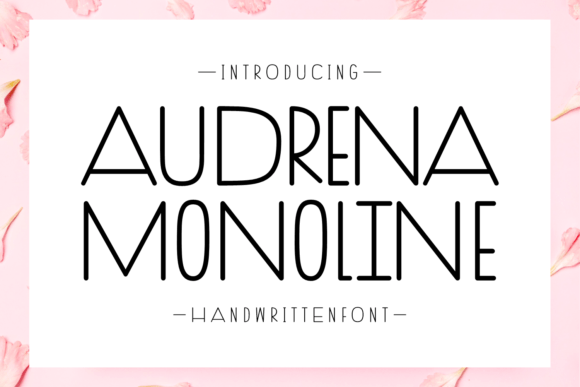
The Designer’s Delight: Audrena Monoline Font
Have you ever been in the middle of a design project, pouring your heart and soul into it, only to get stuck on one thing: the font? I certainly have! It was a typical Wednesday afternoon when I found myself working on a client’s branding project, and I just couldn’t seem to find the perfect handwritten font. That’s when I stumbled upon Audrena Monoline, and let me tell you, it was love at first sight! 💕
A Personal Touch: What Makes Audrena Monoline Special
Audrena Monoline is a handwritten font with a personal touch, perfect for adding a unique and authentic feel to your designs. Its charming and distinct look makes it ideal for crafters, designers, and creative hobbyists who want to give their text a one-of-a-kind personality.
• ✨ Unique and authentic handwritten feel
• ✅ Easy to read and understand
• 💫 Perfect for adding a personal touch to designs
• 🎨 Versatile and works well with various design styles
• 🤔 Limited character set compared to other fonts
• ⚠️ May not work well with very small font sizes
Exploring Alternatives: Similar Fonts to Audrena Monoline
The Story Behind Audrena Monoline: Designer Inspiration
Audrena Monoline was created with the intention of bringing a personal touch to designs. The designer wanted to create a font that felt authentic and unique, perfect for crafters, designers, and creative hobbyists who want to add a human touch to their work. The font is named after the designer’s grandmother, Audrena, who was known for her beautiful handwriting.
Q: What is Audrena Monoline font?
A: Audrena Monoline is a handwritten font with a personal touch, perfect for adding a unique and authentic feel to your designs.
Q: What design styles is Audrena Monoline suitable for?
A: Audrena Monoline works well with various design styles, including craft, DIY, and creative projects.